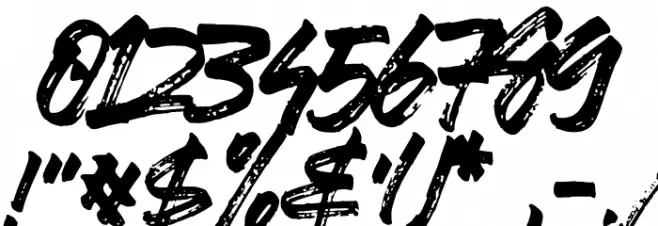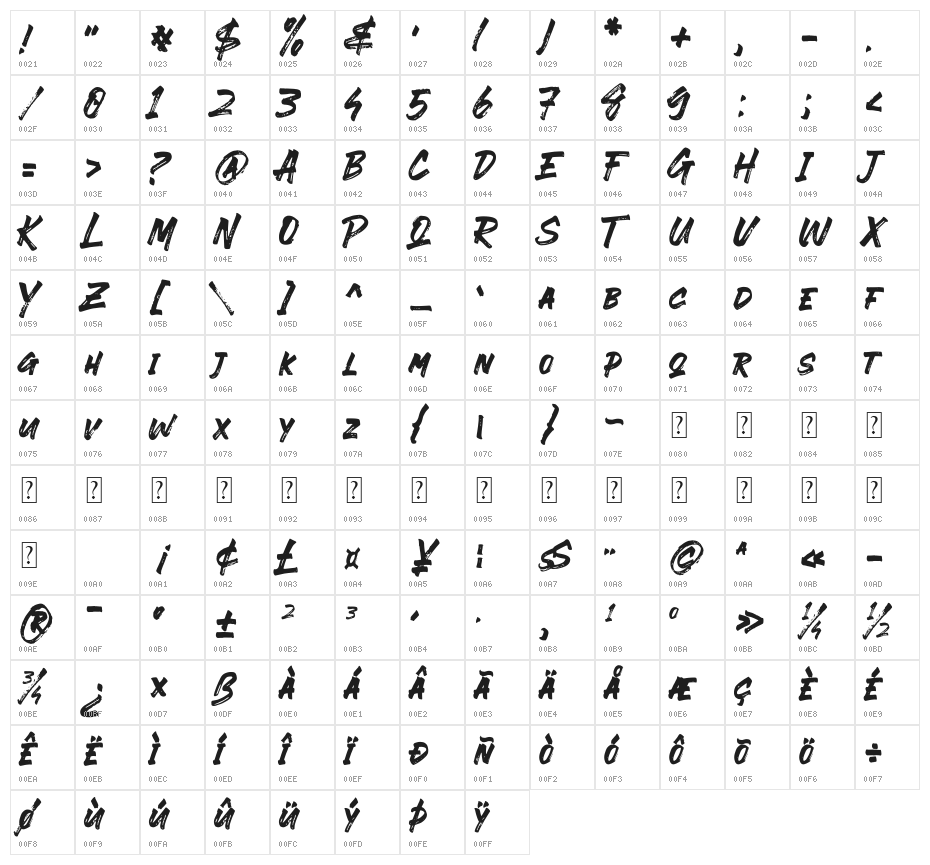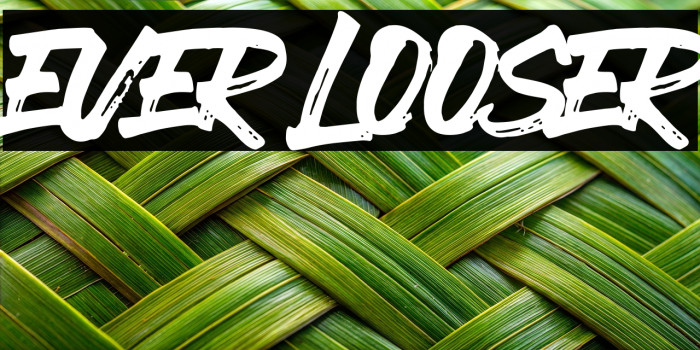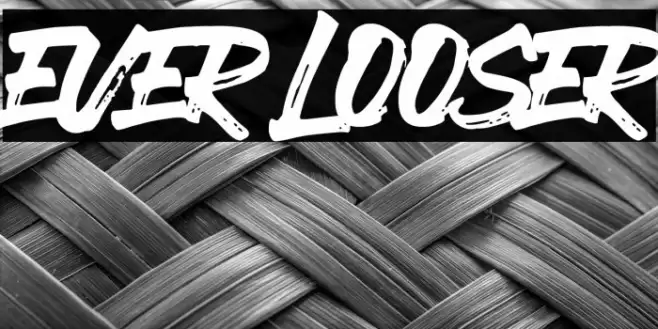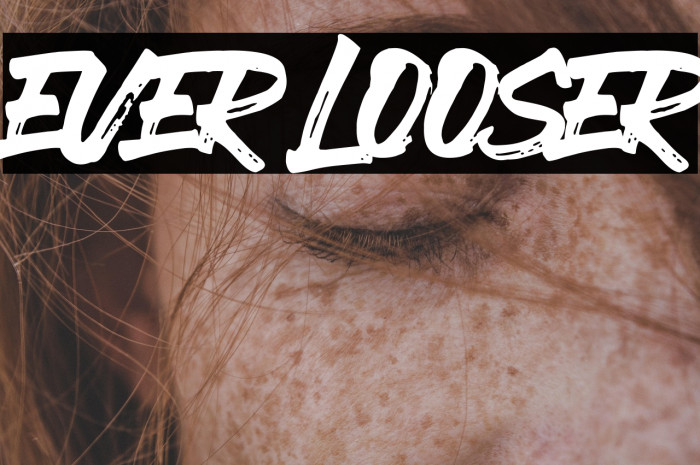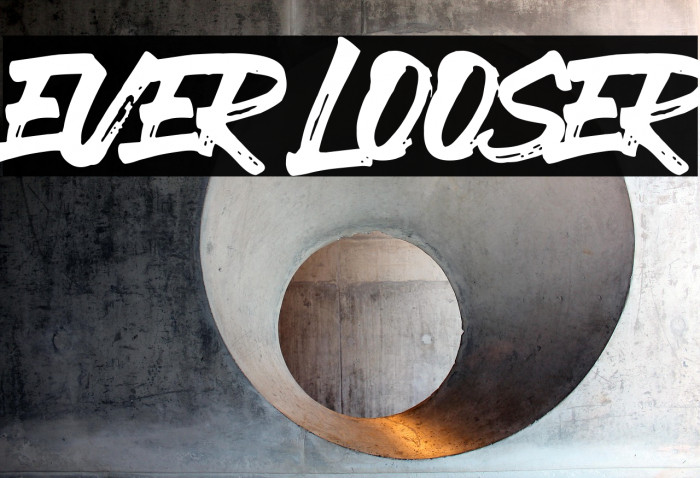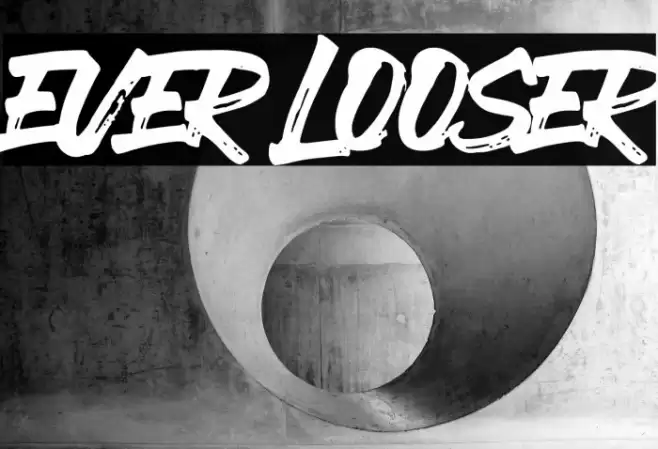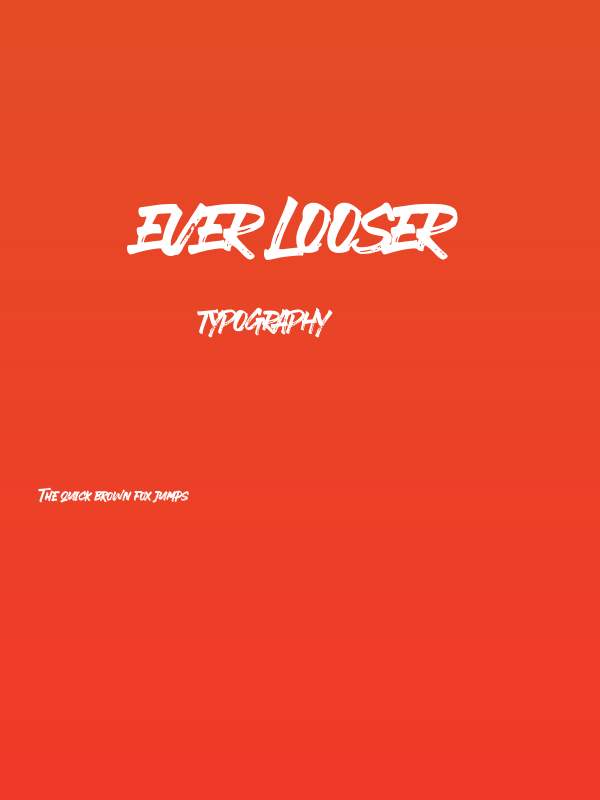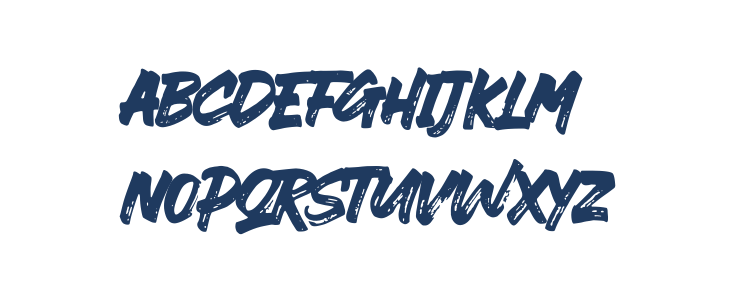
EVER LOOSER Font
EVER LOOSER Description
This font features a bold, energetic brush script style with a dynamic and expressive appearance. The letters are crafted with a rough, textured edge, giving them a hand-painted look that adds a sense of movement and vitality. The uppercase and lowercase letters maintain a consistent style, with wide strokes and a slightly slanted orientation, enhancing the casual and artistic feel. The numbers and special characters follow the same design principles, ensuring uniformity across all elements. This font's bold and striking presence makes it ideal for projects that require a strong visual impact.
| Proposed Projects | Ideal for branding, posters, album covers, and any design needing a bold, artistic touch. |